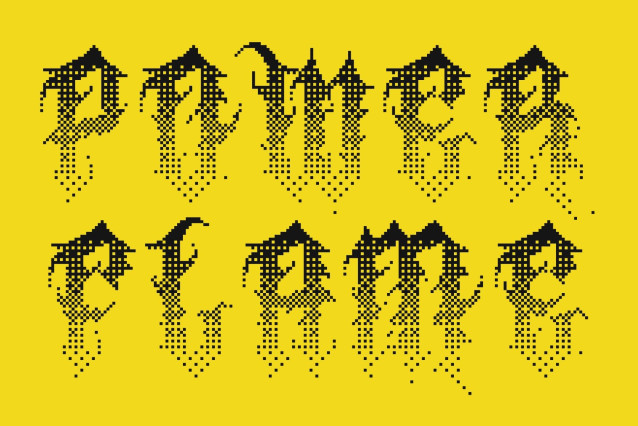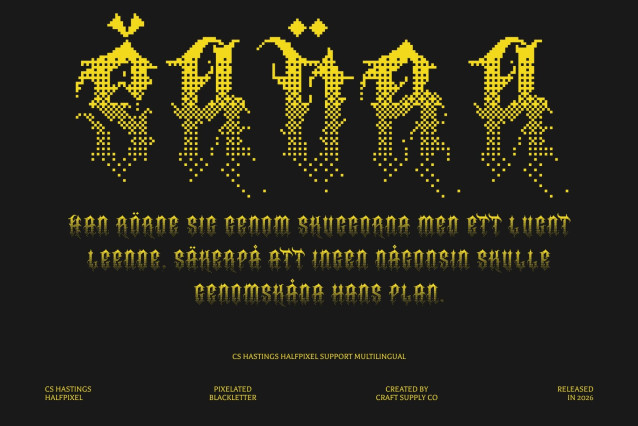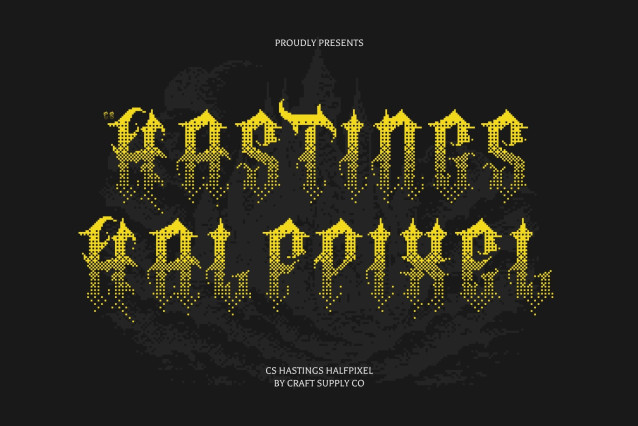
CS Hastings Halfpixel – Blackletter Display Font: Where Gothic Tradition Meets Digital Retro Style
Decorative Gothic Forms with Smooth Pixel Aesthetics
This is a classic Blackletter display font that blends traditional gothic letterforms with a distinctive halfpixel effect. Unlike rigid pixel typography, the halfpixel treatment creates smoother edges through subtle anti-aliasing, giving the font a softer and more refined digital appearance while preserving its retro-tech aesthetic. The result is a typeface that feels both historic and futuristic.
Retro Digital Style with Dark Artistic Energy
This font delivers a unique typographic identity filled with mystery, rebellion, and electronic culture. Its dramatic strokes and softened pixel edges create a bold visual rhythm that feels nostalgic, experimental, and highly expressive.